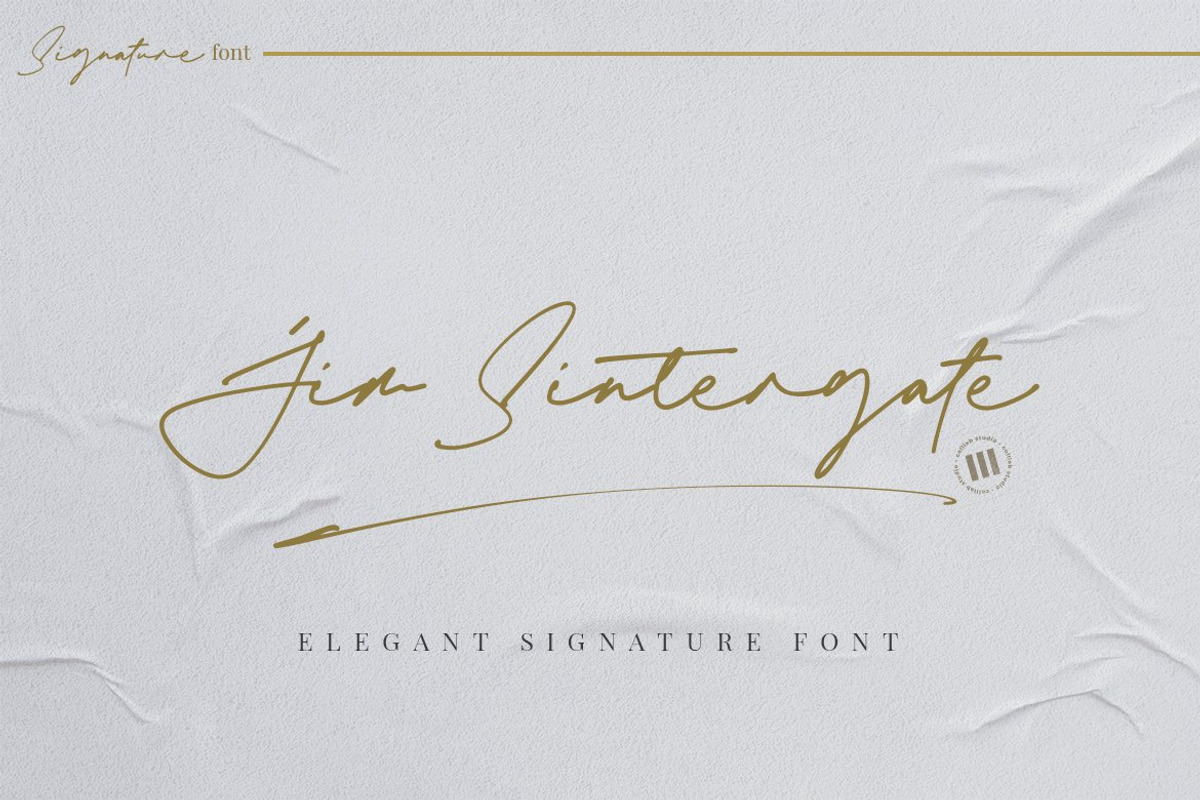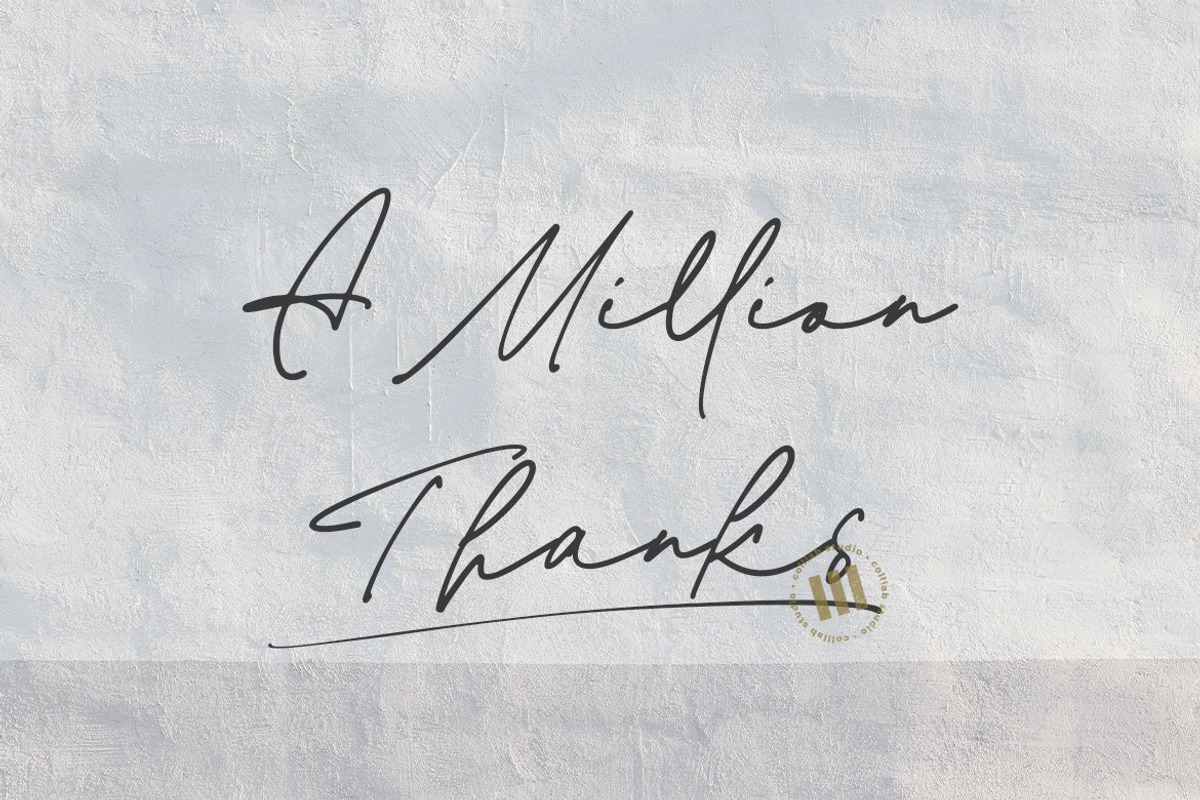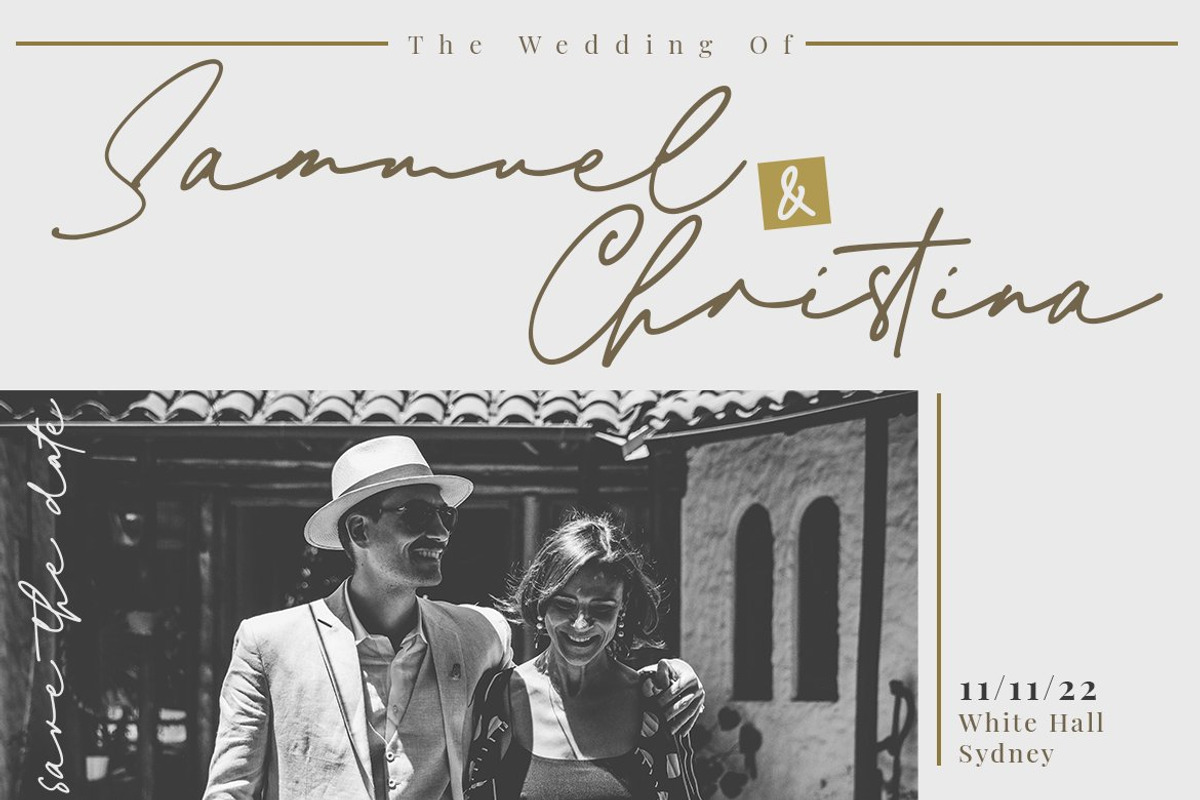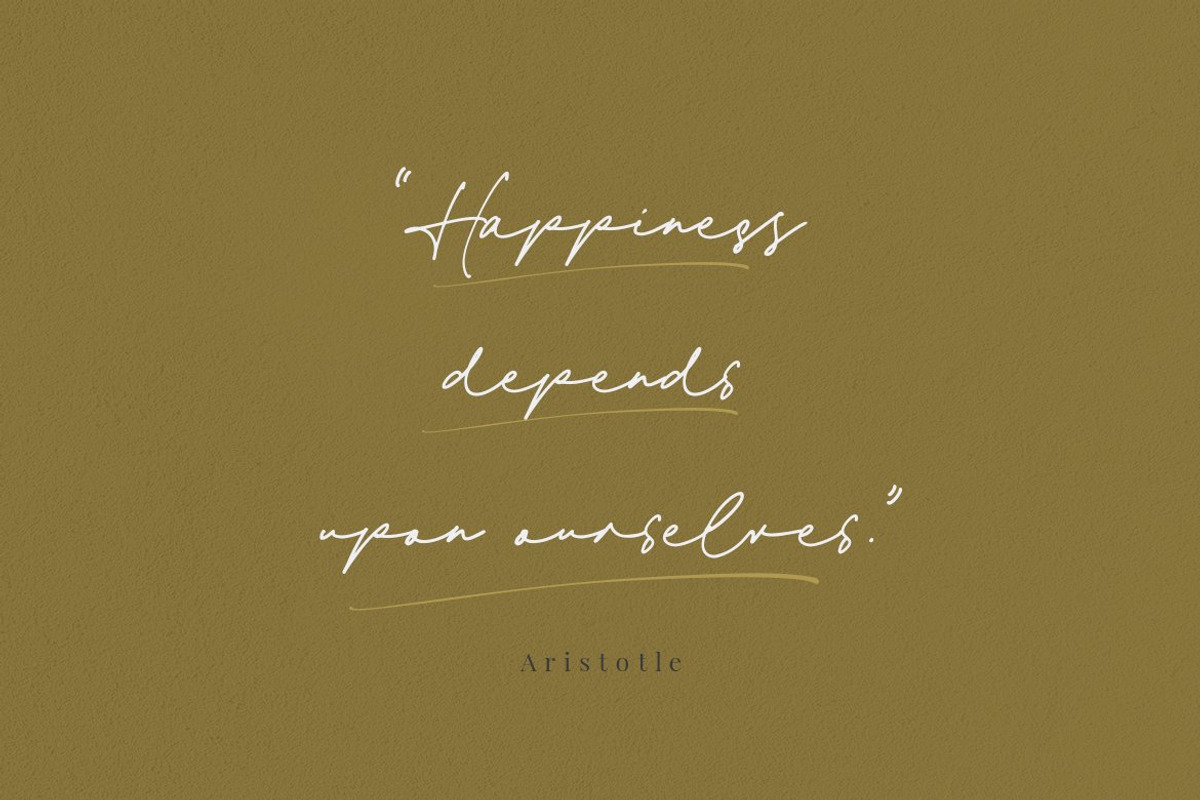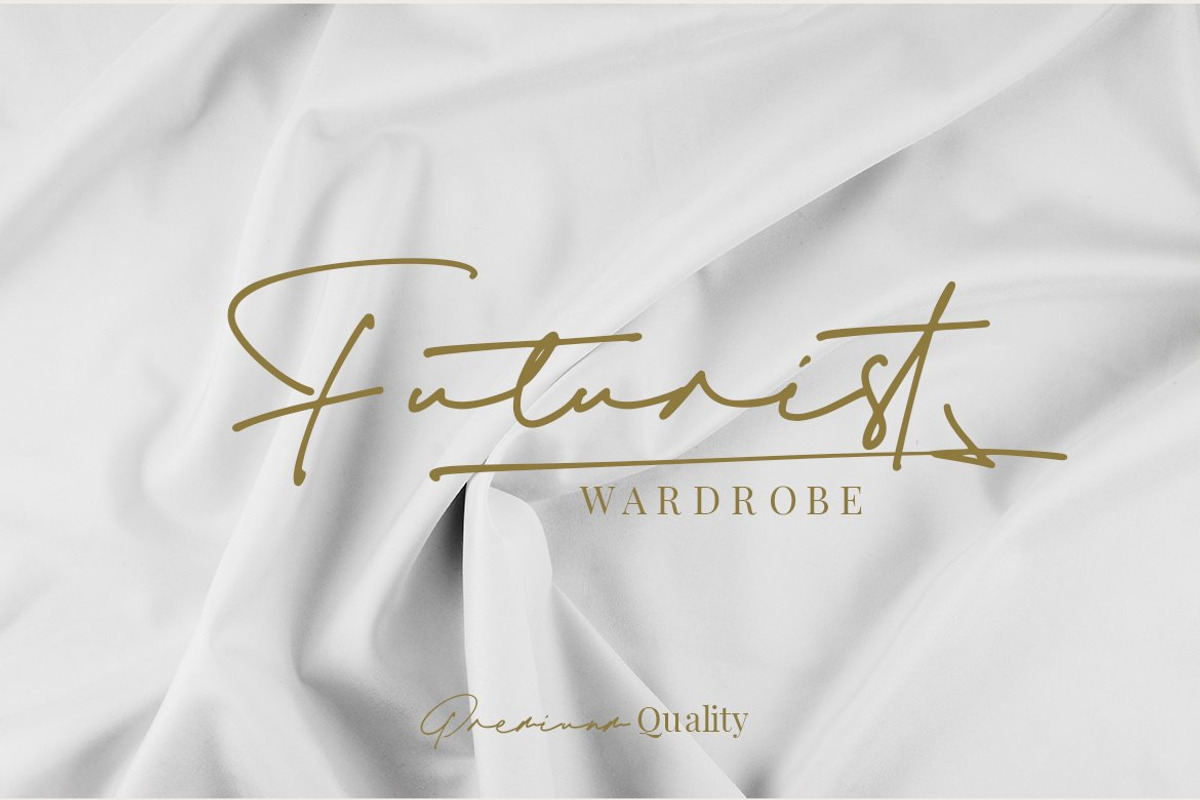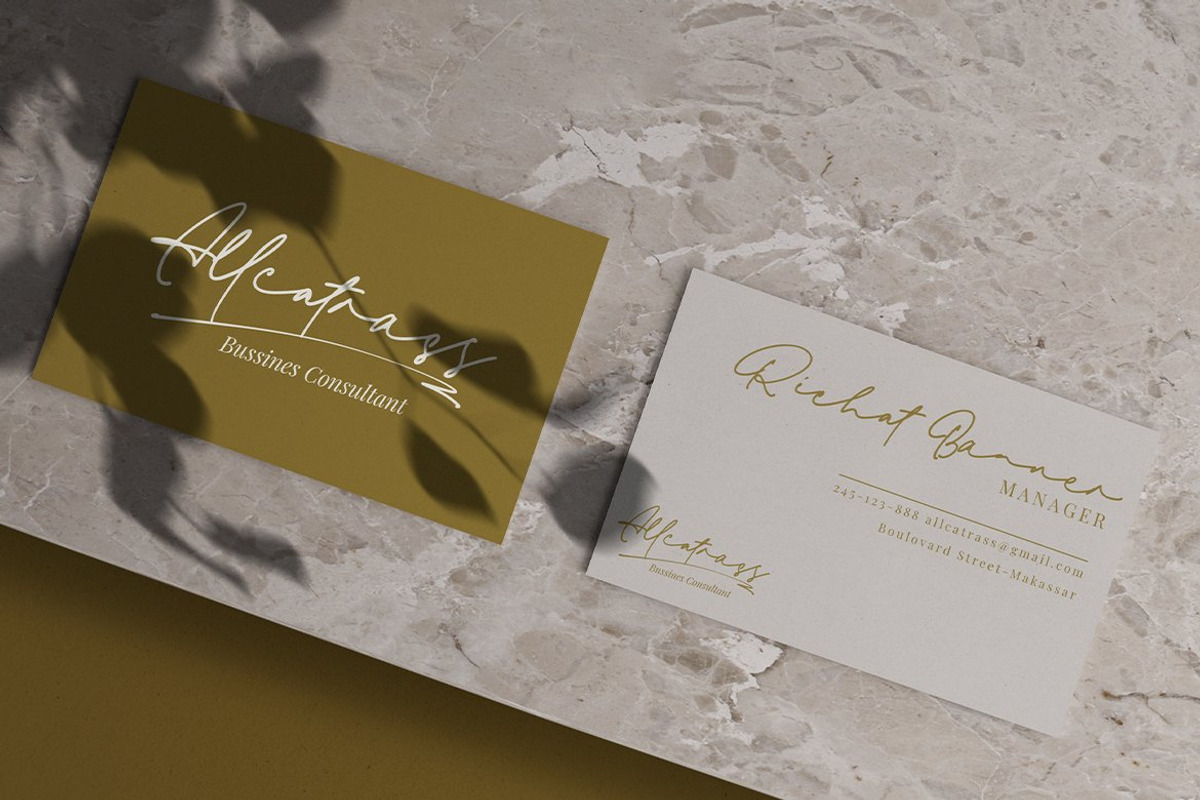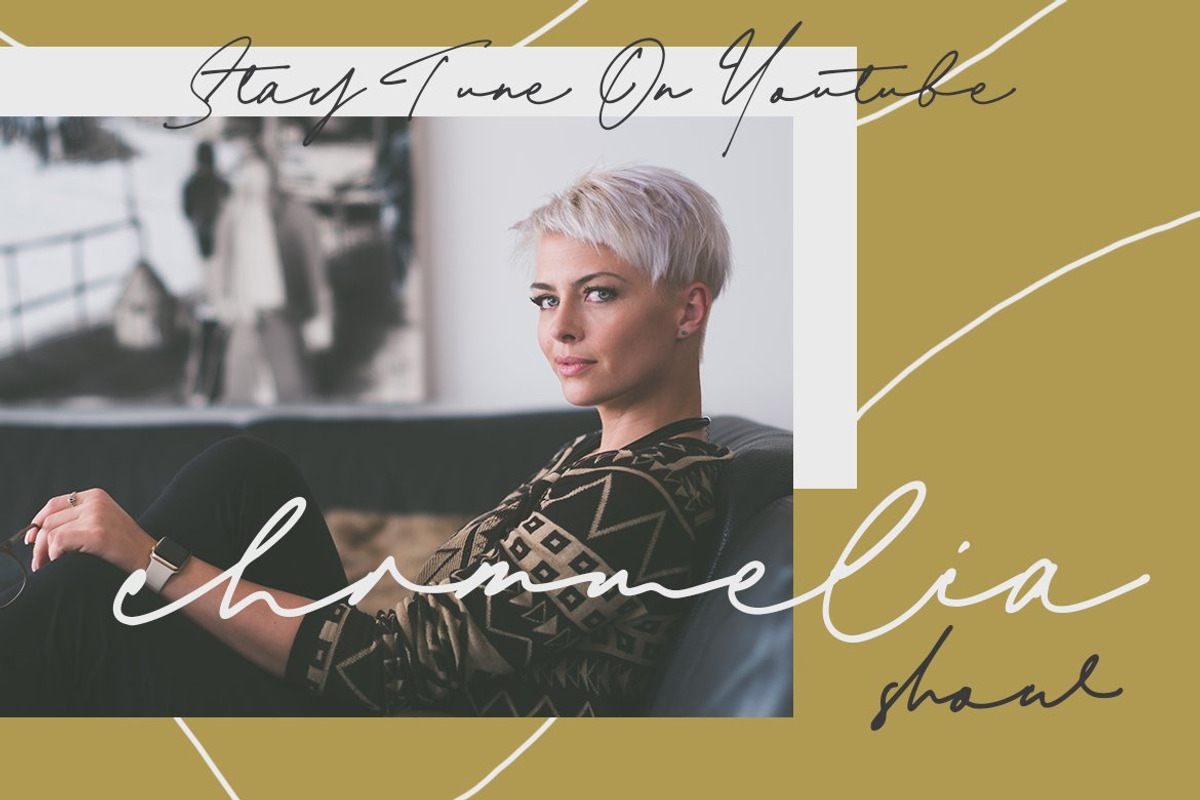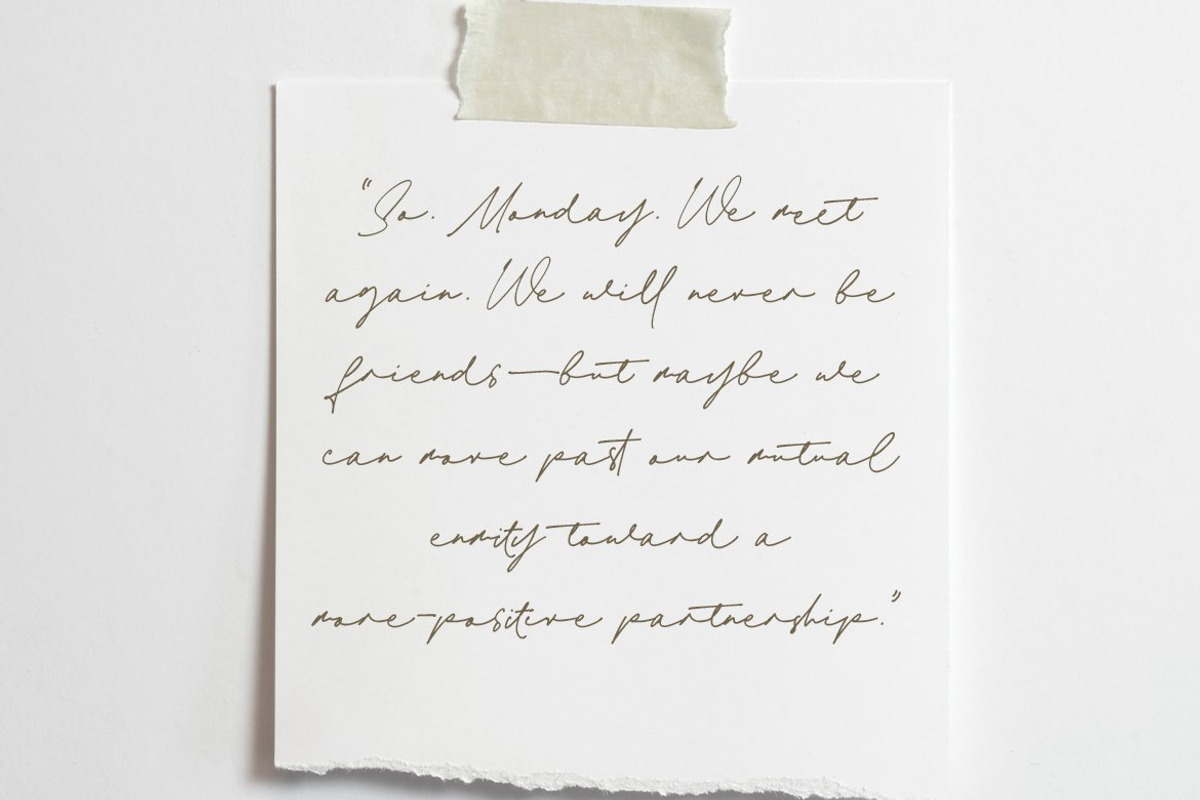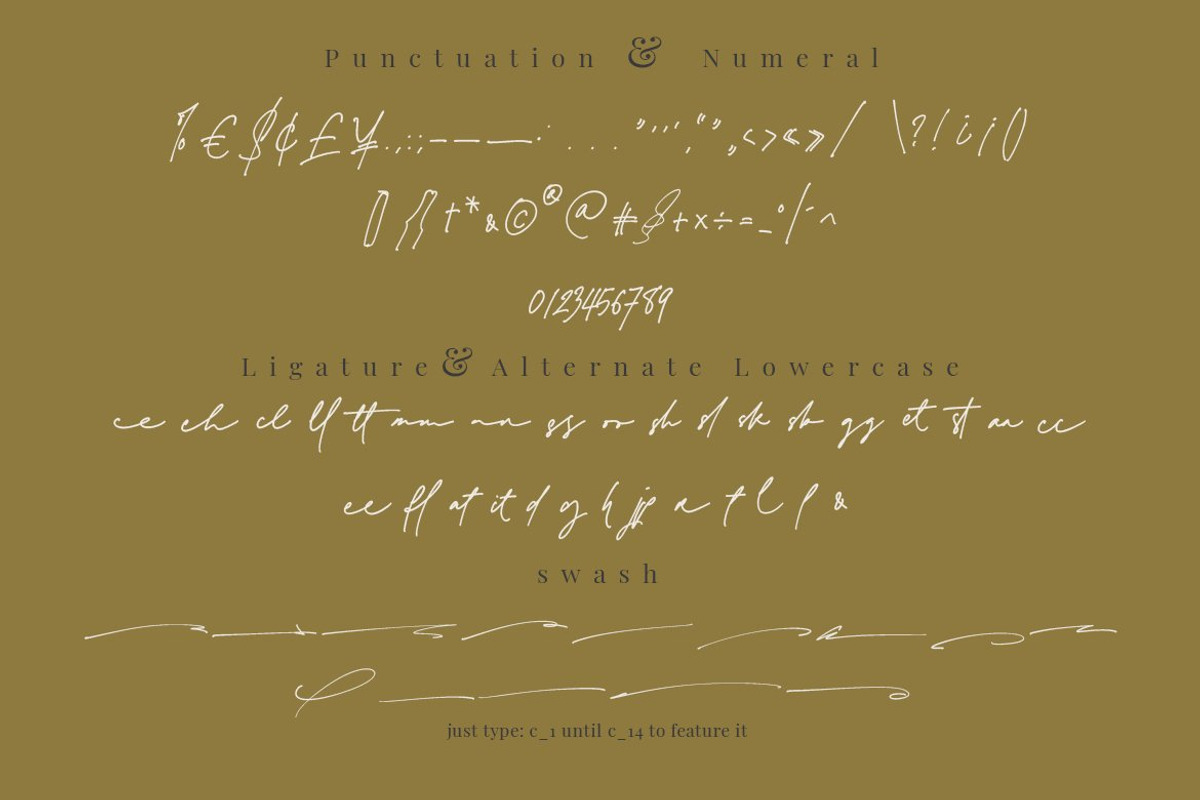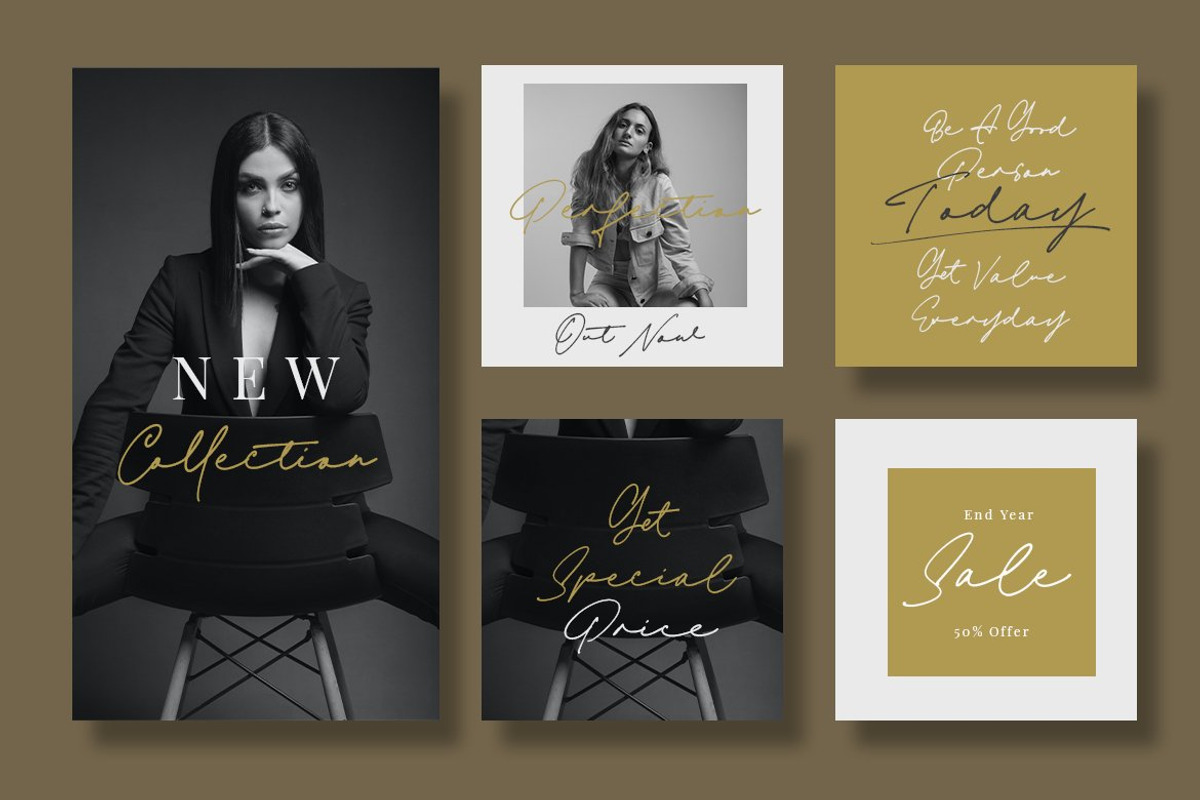
Jim Sintergate - Elegant Signature
JIM SINTERGATE - An Elegant Signature Font
Jim Sintergate is a timeless and incredibly relaxed handwritten font. It looks stunning on wedding invitations, thank you cards, quotes, greeting cards, logos, business cards and every other design which needs a handwritten touch. This font is PUA encoded which means you can access all of the glyphs and swashes with ease! It features a varying baseline, smooth lines, gorgeous glyphs and stunning alternates.
Jim Sintergate comes with multilingual support, alternates, swashes, dingbats